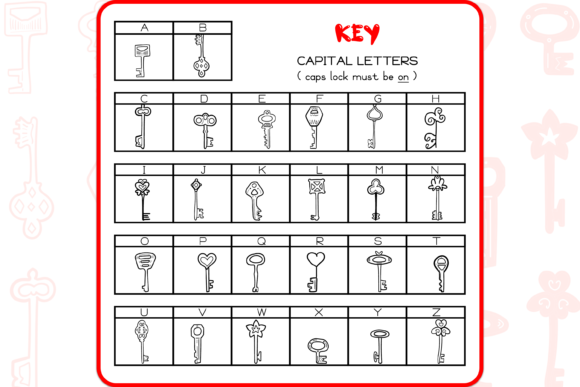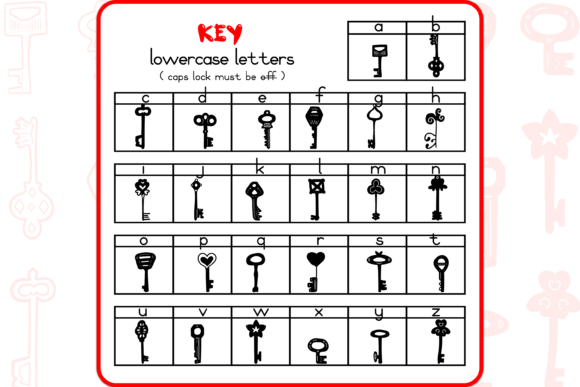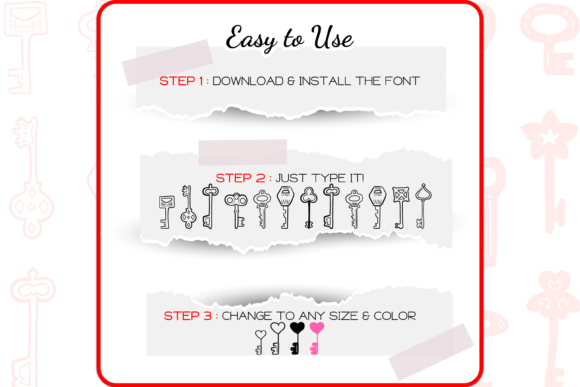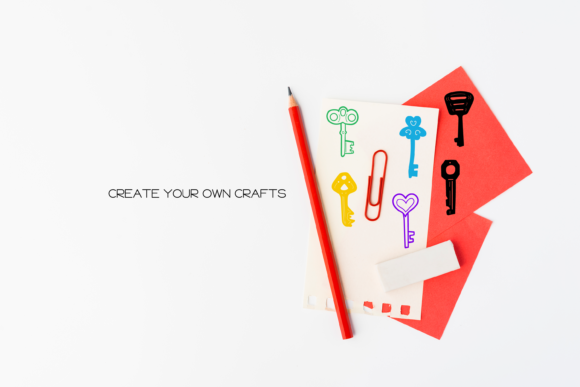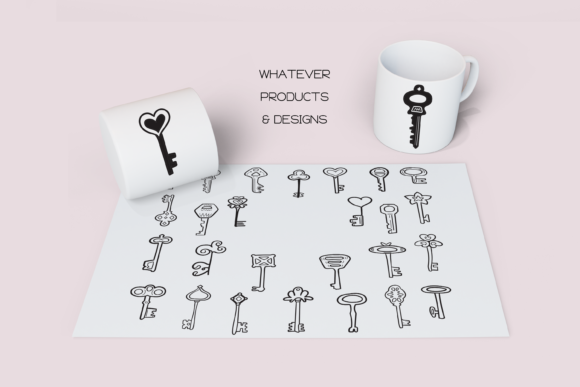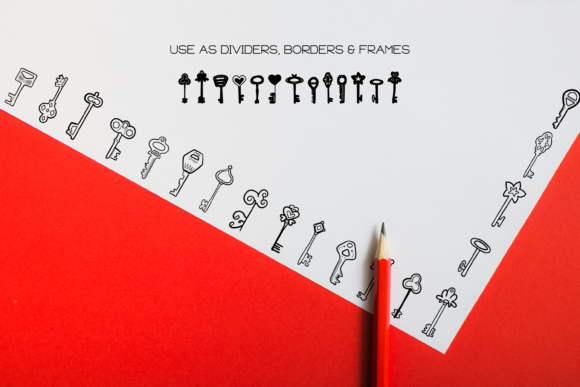
The Key Font
About The Key Font
Absolutely! “The Key” is a unique and cute dingbats font that can add a touch of charm and creativity to your creative ideas. With its collection of 52 hand-drawn key-themed doodles, this font offers a delightful array of key designs.
“The Key” font is perfect for projects related to themes like unlocking, secrets, mystery, or anything related to keys and locks. Each doodle in the font represents different styles of keys, including vintage keys, skeleton keys, heart-shaped keys, and more. These doodles can serve as decorative accents, symbols, or even storytelling elements in your designs.
By incorporating “The Key” font into your creative projects, you can infuse them with a sense of whimsy, intrigue, and uniqueness. The hand-drawn nature of the doodles adds a personal and artistic touch, making your artworks stand out and evoke a sense of curiosity and wonder.
Consider using “The Key” font in various ways. You can use the doodles individually to embellish posters, invitations, or graphics related to mystery events, escape rooms, or treasure hunts. They can also be combined to create patterns, borders, or custom illustrations that emphasize the idea of unlocking or revealing something.
“The Key” font can also be a delightful addition to your digital designs, such as social media graphics, blog headers, or website elements. The cute and unique key doodles can add a touch of visual interest to your online presence, especially if you’re in the entertainment, gaming, or creative industries.
Feel free to experiment with different colors, sizes, and arrangements when using “The Key” font. You can mix and match the doodles with other fonts or graphic elements to create visually captivating compositions that reflect your personal style and convey a sense of mystery and adventure.
In conclusion, “The Key” is a unique and cute dingbats font that offers 52 hand-drawn key-themed doodles to enhance your creative ideas. By incorporating these delightful key elements into your designs, you can make your artworks look outstanding and convey a sense of whimsy and intrigue. Whether you’re working on mystery-themed projects, creating visually captivating visuals, or adding a touch of creativity to your digital designs, this font is a valuable asset to your creative toolkit.